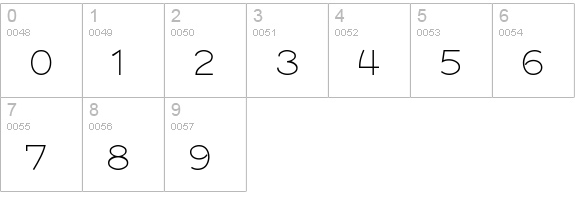
Perisphere Font Details
Perisphere font is a stunning display typeface that exudes a harmonious blend of elegance and modernity. With its clean lines and sophisticated curves, this font brings a unique touch to any design project, making it perfect for both digital and print applications. What sets Perisphere font apart is not only its striking appearance but also its accessibility. This font is freely available to download at FontsMarket.com, allowing designers and creatives to unleash their creativity without any limitations. Its availability as a free download empowers individuals to experiment and explore different design possibilities, making it an invaluable asset for both personal and commercial projects. Perisphere font's versatility is unparalleled, as it seamlessly adapts to a wide range of design contexts. Whether it's for branding, packaging, headlines, or editorial layouts, this font effortlessly captures attention and conveys messages with its distinctive personality. Its generous letterforms ensure optimal legibility, while its balanced proportions lend an air of sophistication to any composition. The craftsmanship of Perisphere font is evident in every detail, from the meticulously crafted letterforms to the thoughtfully designed ligatures. Its extensive character set includes a variety of alternates and stylistic variations, providing designers with endless possibilities to customize and infuse their own artistic flair into their projects. Whether you are a seasoned professional or an aspiring designer, Perisphere font is a must-have in your typographic arsenal. Its versatility, elegance, and accessibility make it the ideal choice for those seeking to create impactful and visually stunning designs. So why wait? Go ahead and unleash your creativity with Perisphere font, freely available to download at FontsMarket.com.